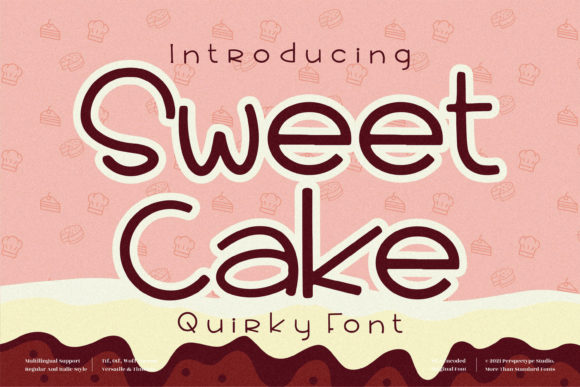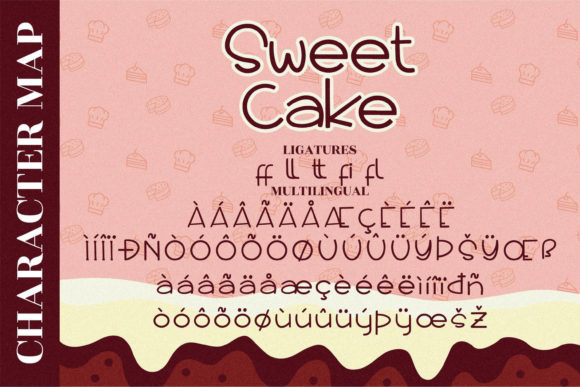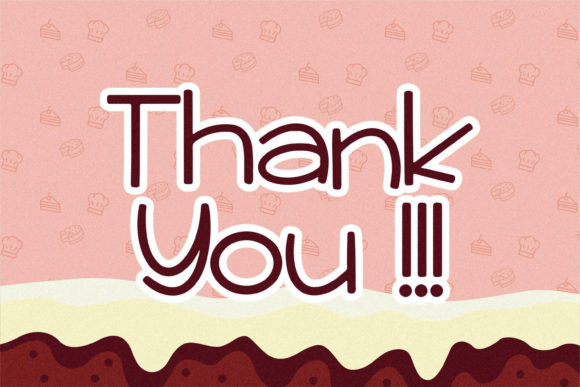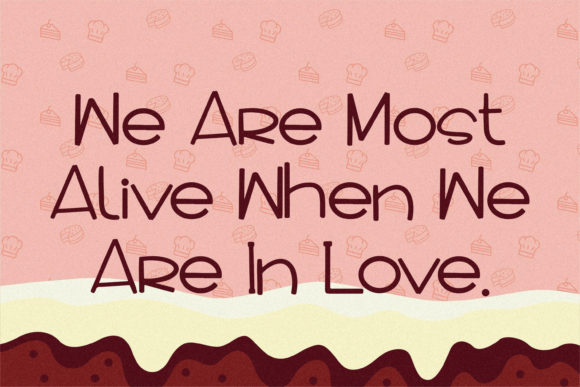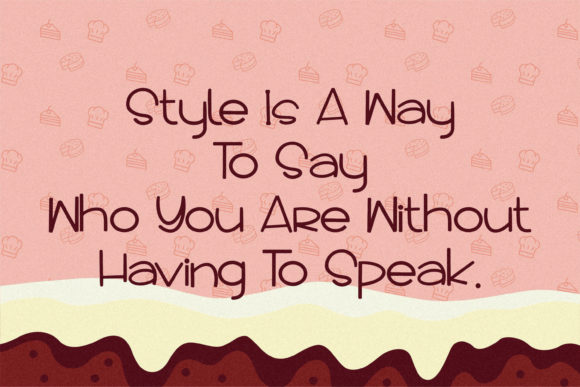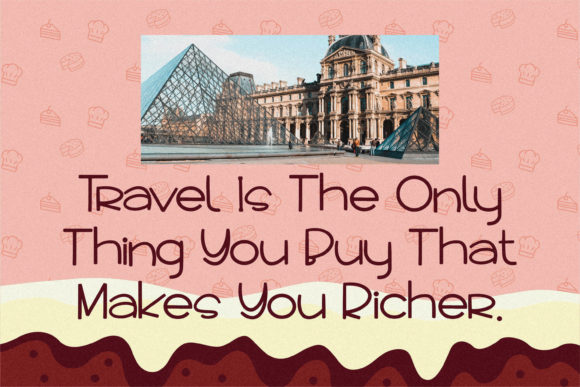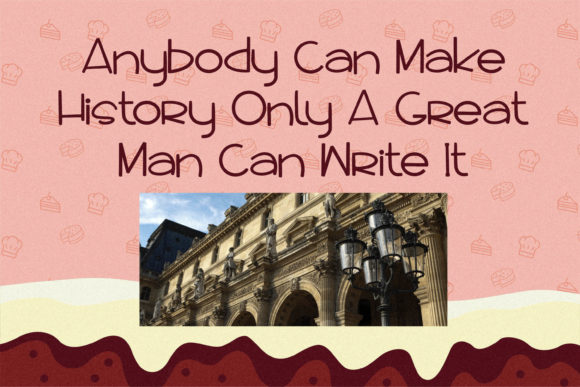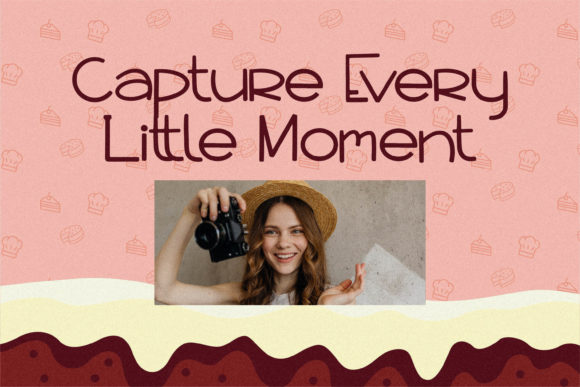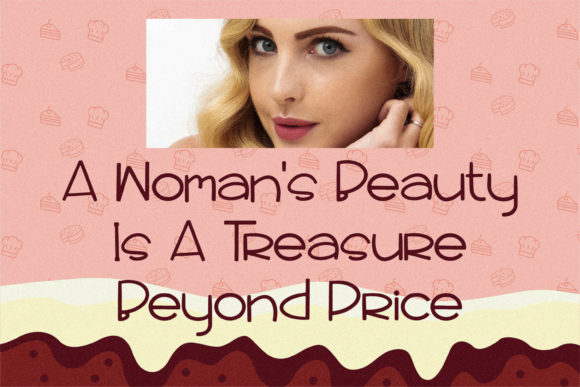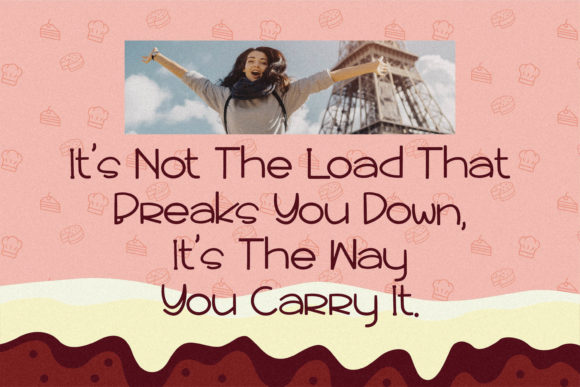
Sweet Cake Font
About Sweet Cake Font
“Sweet Cake” is a simple and friendly handwritten font with thin lettering. It is a versatile font that can enhance various design projects with its charming and approachable style.
The simplicity of “Sweet Cake” makes it suitable for a wide range of topics and applications. Whether you’re working on personal or professional projects, this font can be a valuable asset in your font library. Its friendly and inviting nature adds a touch of warmth and personality to any design.
The thin lettering of “Sweet Cake” gives it an elegant and delicate appearance. This makes it particularly well-suited for designs where a subtle and refined touch is desired. It can be used effectively for headings, titles, logos, and other prominent elements in your designs.
The friendly and approachable style of “Sweet Cake” makes it ideal for projects that aim to create a warm and welcoming atmosphere. It can be used in greeting cards, invitations, stationery, and other personal or social occasions. Its simplicity allows it to complement different design elements without overwhelming them.
In addition to personal projects, “Sweet Cake” can also be used in professional settings. It can add a touch of friendliness to business cards, brochures, websites, and other marketing materials. Its simplicity and legibility ensure that your message is conveyed clearly and effectively.
Overall, “Sweet Cake” is a versatile handwritten font that combines simplicity and friendliness. Its thin lettering and friendly style make it suitable for a variety of design projects. Whether you’re working on personal or professional designs, this font has the potential to elevate and enhance your creations with its charming and approachable aesthetic.